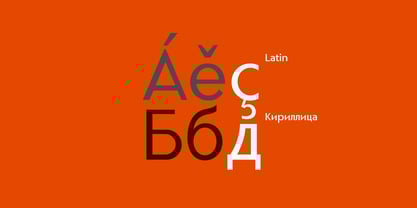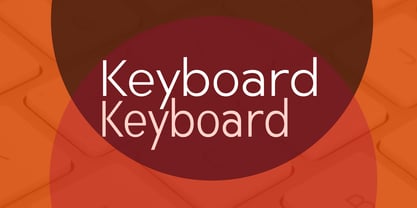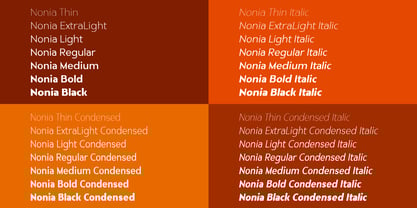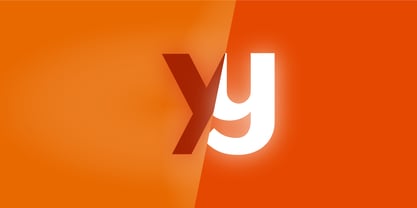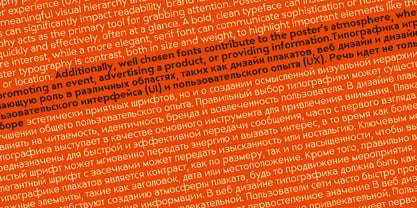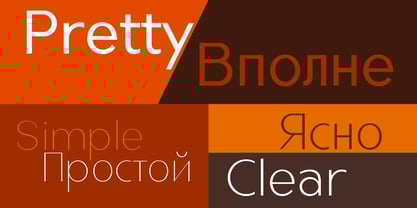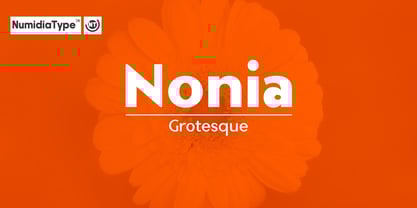
Nonia
by NumidiaType
The Nonia Font Family was designed by Yassine Abdi and published by NumidiaType. Nonia contains 28 styles and family package options. More about this family
Nonia™ is a modern grotesque font family, circular and geometric based. It's inspired from the sans serif style that originated in the 19th century, designed as simple, clean lines with subtle humanist influences and balanced design, It offers a harmonious blend of form and function for versatile display and text without decorative elements (serifs) and with more almost uniform stroke width, The typeface features a distinct yet neutral character.
With Western European and Cyrillic languages support, and unique rotative shapes, it is characterized by a sense of smooth movement while reading and reinforced with many alternative characters like a, w, M, Q, and W.
For professional use, we've made it support more than 20 powerful OpenType features inside for an advanced design or scripting.